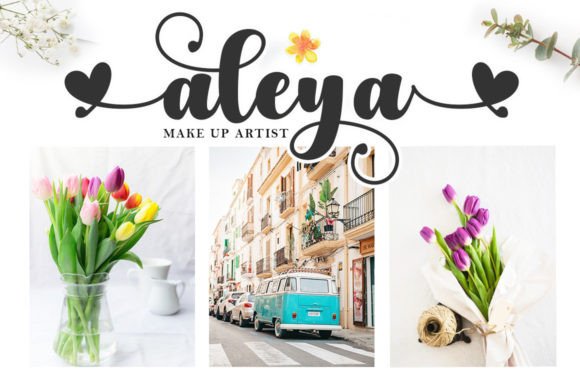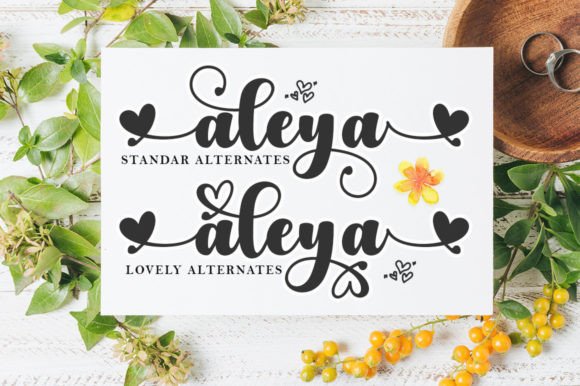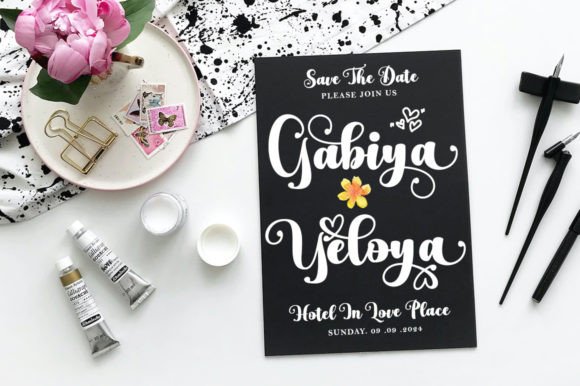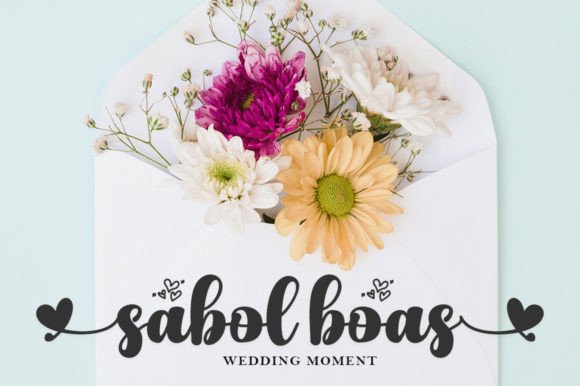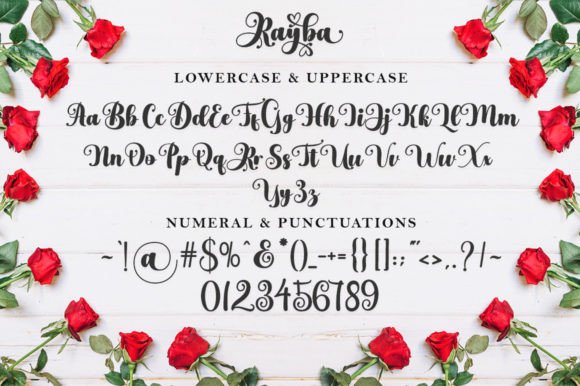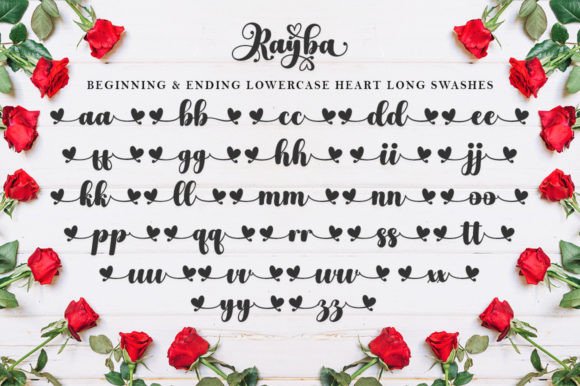
Introduction to Rayba Font
Rayba is a cute, versatile, and flexible handwritten font.
Warm, romantic, and jovial, this font will turn any of your project ideas into real works of art This font is PUA encoded which means you can access all the glyphs and swashes easily.
Key Features of Rayba Font
Why Choose Rayba Font?
Rayba Font offers exceptional quality and versatility, making it a valuable addition to your design toolkit. Whether you’re creating for personal projects or commercial use, Rayba Font delivers professional results.